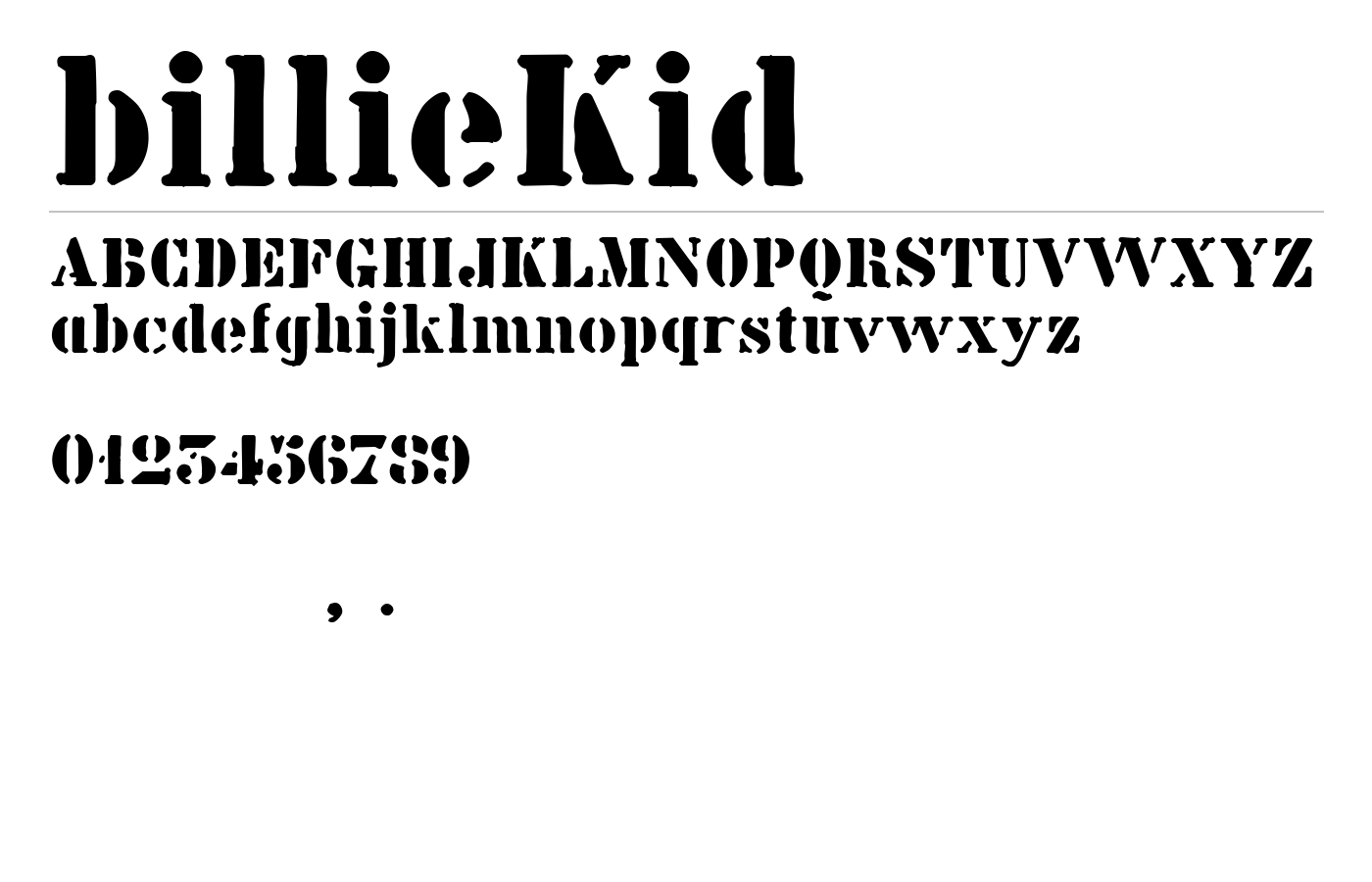
billieKid is a bold slab serif font with a distinctive stencil-style design, featuring sharp, geometric edges and thick, uniform strokes. Its strong presence and vintage industrial vibe make it ideal for headlines, posters, and branding where a rugged, eye-catching look is desired. This font works well for creative projects that seek a mix of retro toughness and contemporary boldness.
| Font family | billieKid Font |
| Designer | J O E B O B graphics |